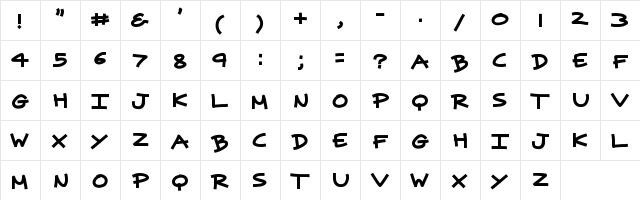
superpowers Medium Font Preview
superpowers Medium
Design Context for superpowers Typeface
superpowers brings high-energy athletic personality to the page — its confident, muscular forms are built for impact.
Built for sports team identities, athletic apparel, event posters, and high-energy promotional material.
Font Pairing: Use alongside a condensed or geometric sans for supporting copy — keep the pairing bold, functional, and free of ornament.
Pro Tip: superpowers thrives on contrast — try it large, bold, and tight against a clean background for maximum visual impact.